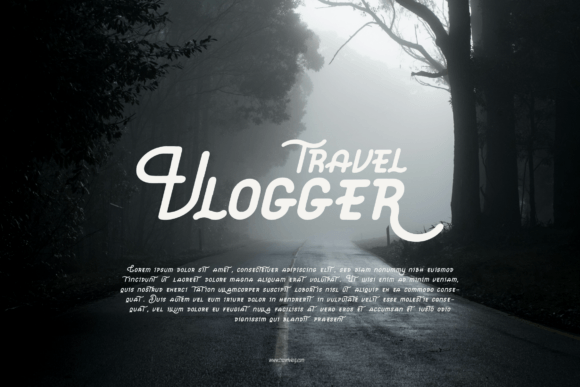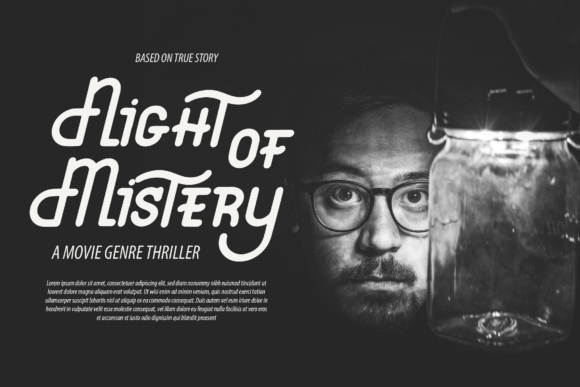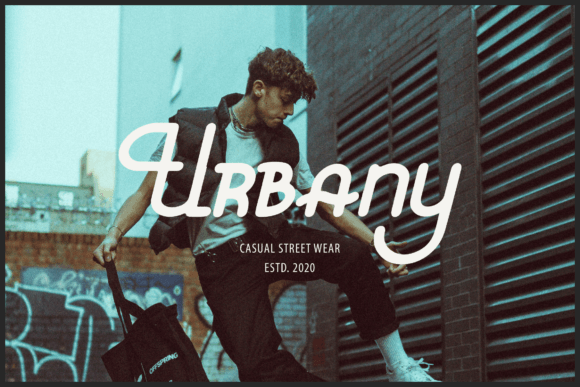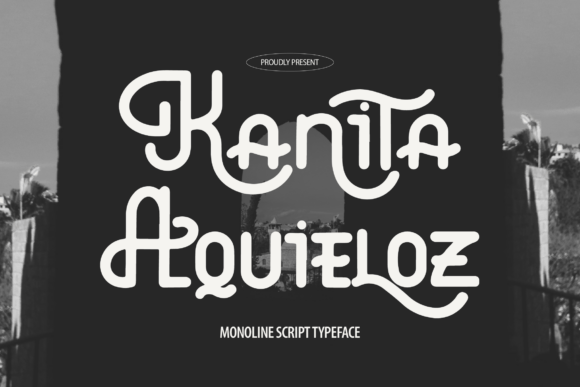
Introduction to Kanita Aquieloz Font
Kanita Aquieloz is a smooth and elegant script font with thin, even lines.
Its flowing, handwritten style makes it perfect for adding a personal and stylish touch to your designs, such as invitations or logos .
Why Choose Kanita Aquieloz Font?